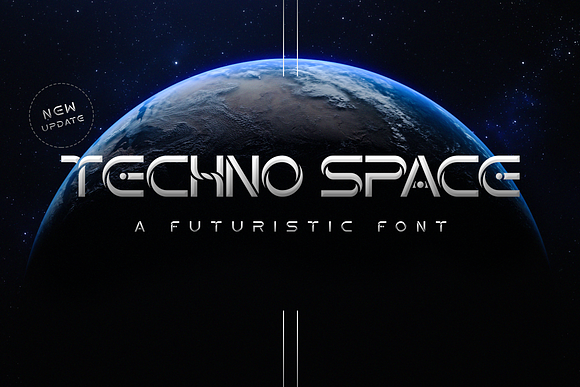
Techno Space Futuristic Font
Techno Space Futuristic Font is perfect for sci-fi movie titles, gaming interface designs, technology startup branding, space exploration company logos, cyberpunk-themed entertainment venues, virtual reality applications, robotics company materials, electronic music festival graphics, futuristic product launches, and cutting-edge software interfaces. This innovative typeface excels in applications where technological advancement, space-age aesthetics, and forward-thinking vision are central brand messaging elements.
What makes Techno Space Futuristic Font exciting is its visionary design that perfectly captures the essence of tomorrow's technology through sleek geometric construction and innovative character details that seem borrowed from advanced civilizations. The font features precisely engineered letterforms with angular elements, strategic negative space usage, and subtle digital-inspired details that create an immediate sense of technological sophistication. Its futuristic character instantly communicates innovation and progress, making it ideal for brands positioning themselves at the forefront of technological evolution.
The Techno Space Futuristic Font family typically includes multiple weights from Light to Bold, often featuring outline variations and special effects like glow, neon, and holographic treatments that enhance the sci-fi aesthetic. Many versions include alternate characters with enhanced futuristic styling, technical symbols, mathematical operators, and decorative elements inspired by circuit boards and space technology. Some collections feature complementary icon sets with spacecraft, robots, and geometric patterns that reinforce the technological theme.
Whether you're developing brands for technology companies, creating promotional materials for science fiction entertainment, or designing interfaces for cutting-edge applications, Techno Space Futuristic Font Free Download provides the visionary character that resonates with audiences fascinated by technological possibilities and space exploration. Its commanding presence makes it perfect for projects that need to convey innovation and advanced thinking. The font's ability to balance technical precision with imaginative vision makes it particularly valuable for companies in aerospace, gaming, and emerging technology sectors seeking to inspire confidence in their ability to deliver tomorrow's solutions today.